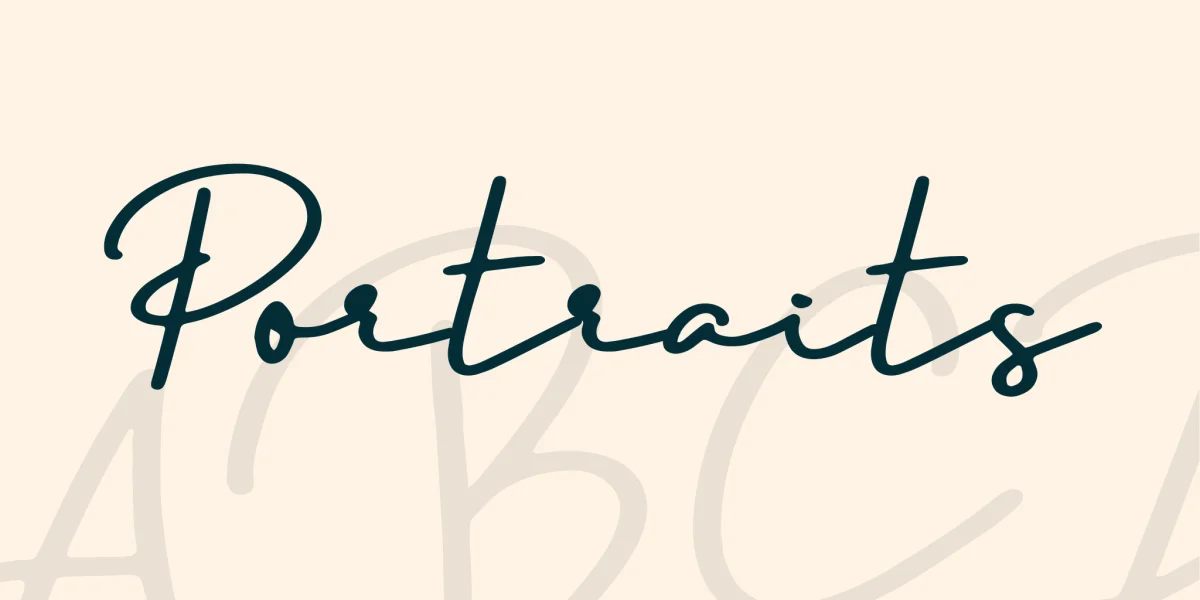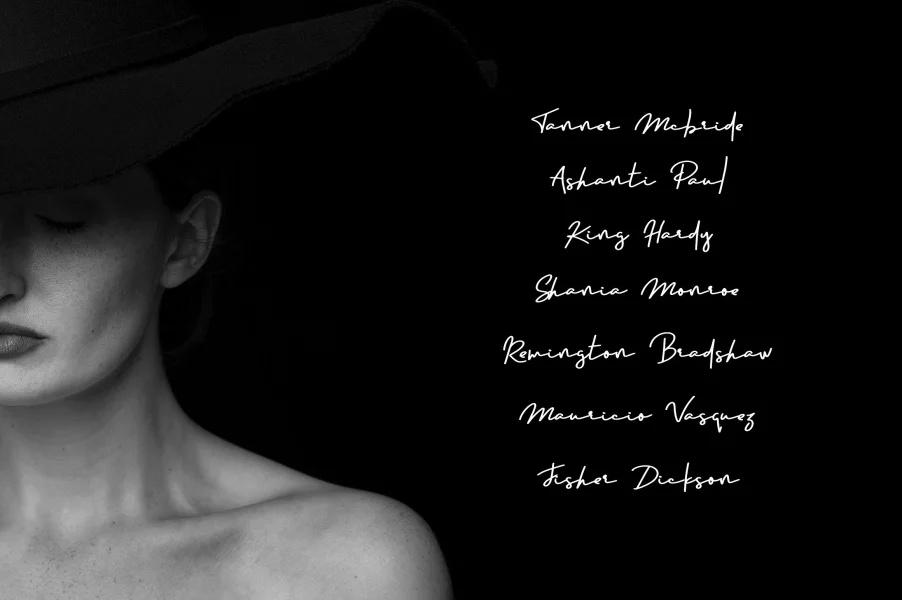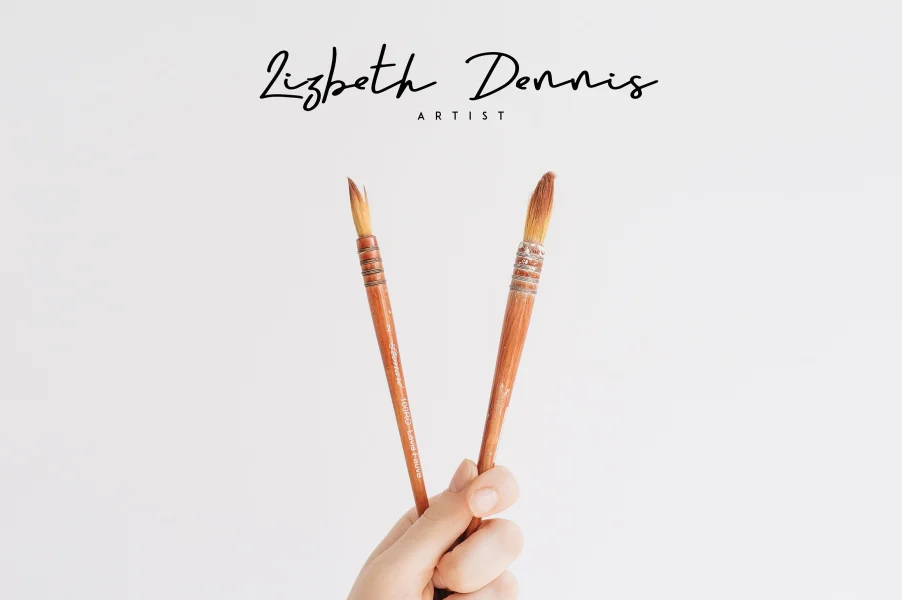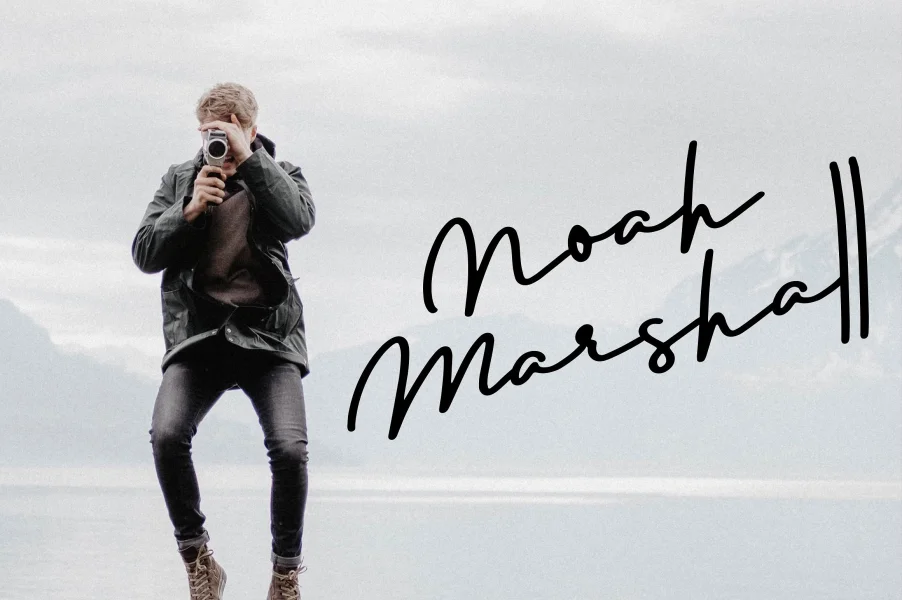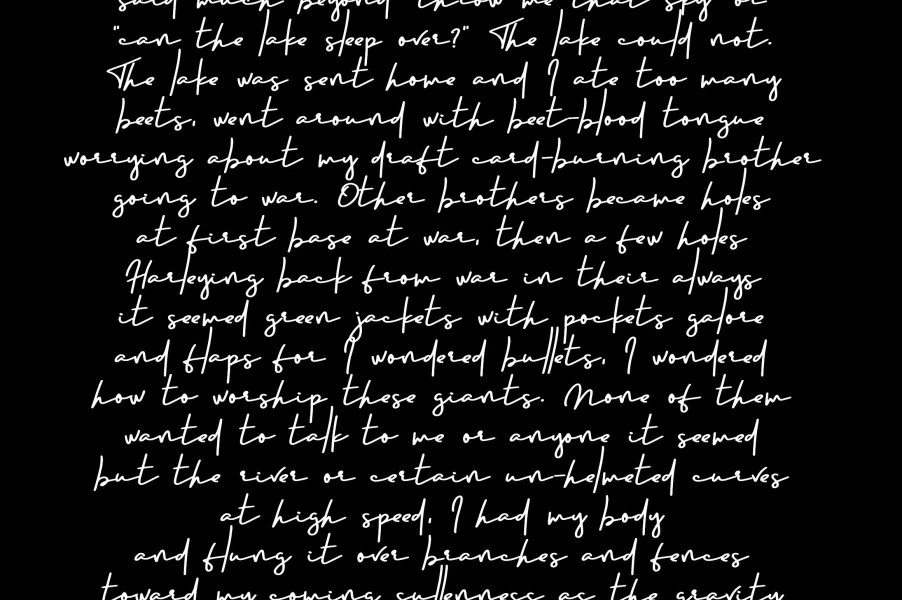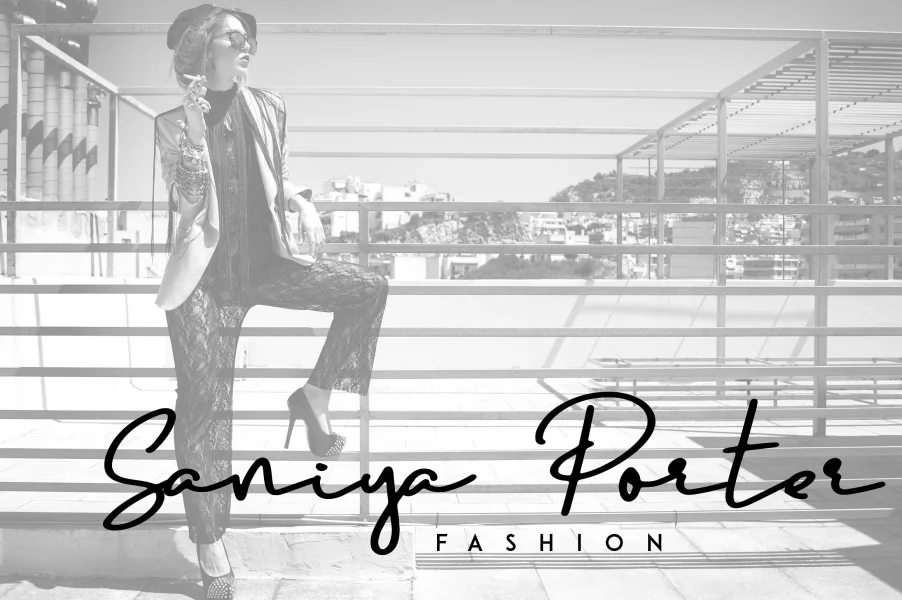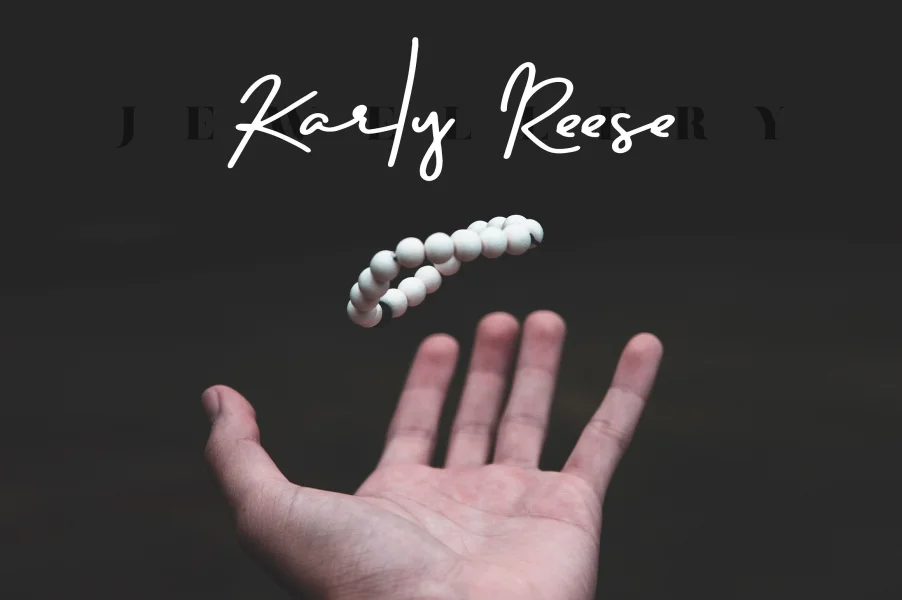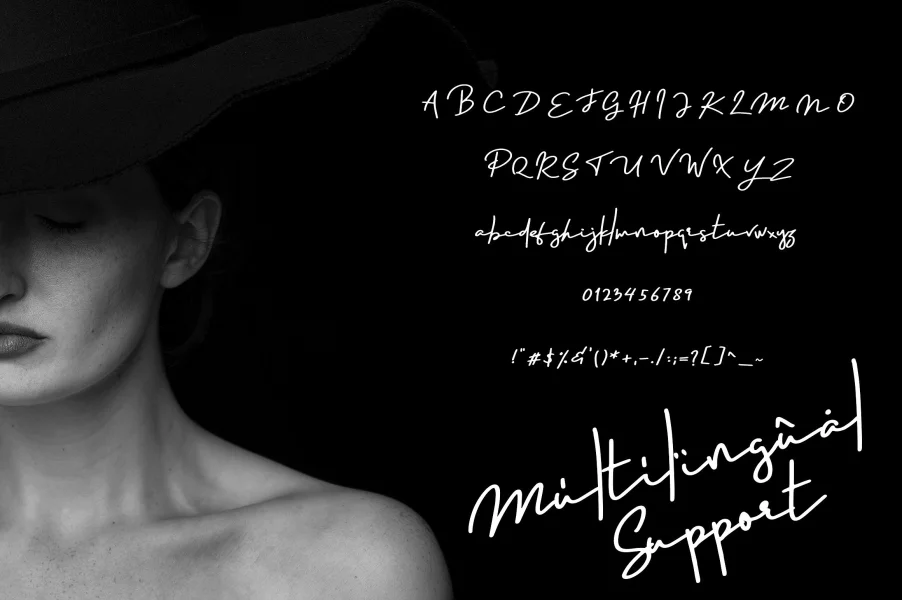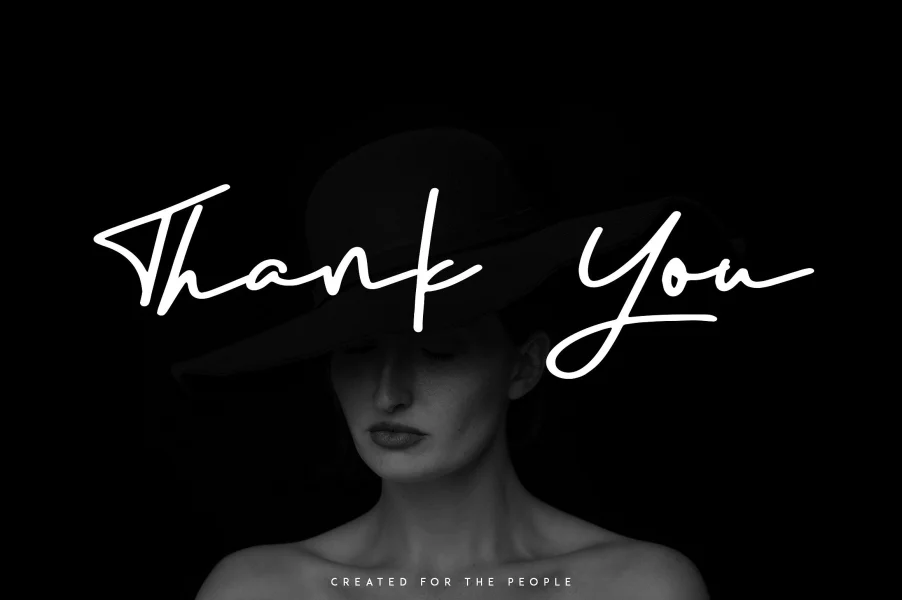
Portraits is signature, clean font with multilingual support. It's a very versatile font that works great in large and small sizes.
Portraits is perfect for branding projects, home-ware designs, product packaging, magazine headers - or simply as a stylish text overlay to any background image.